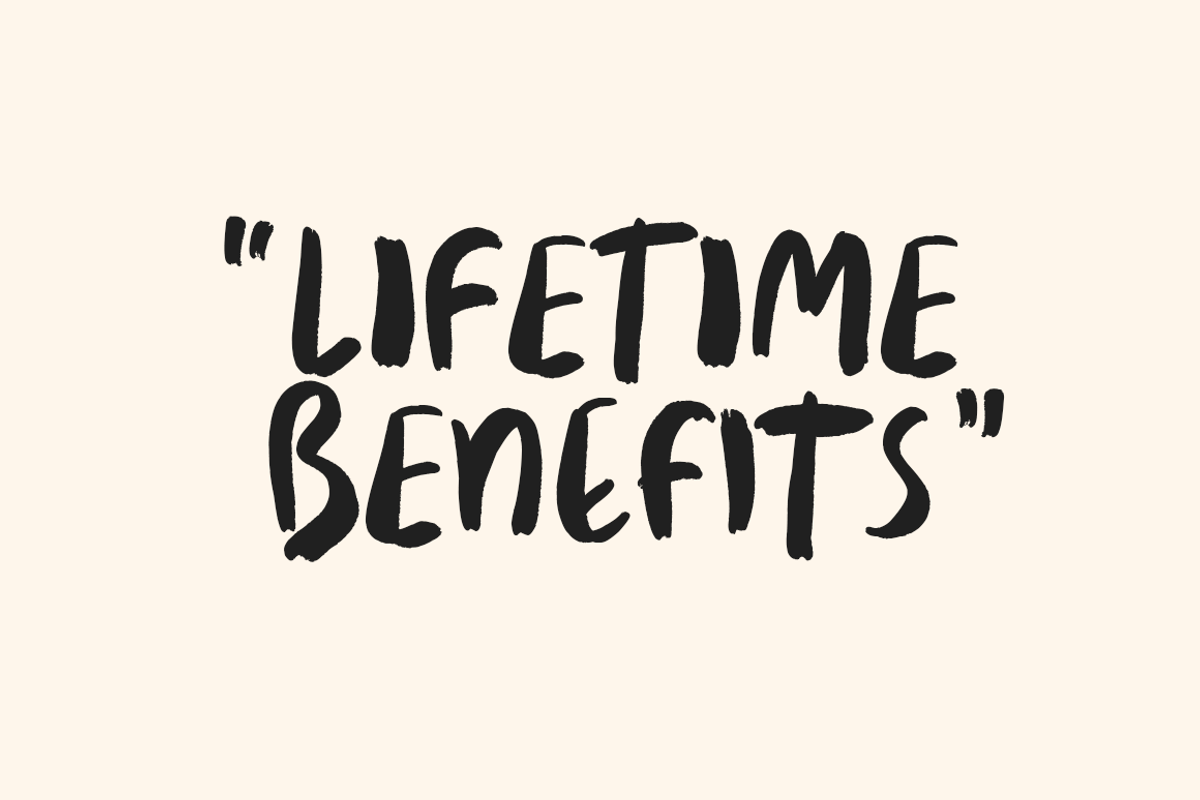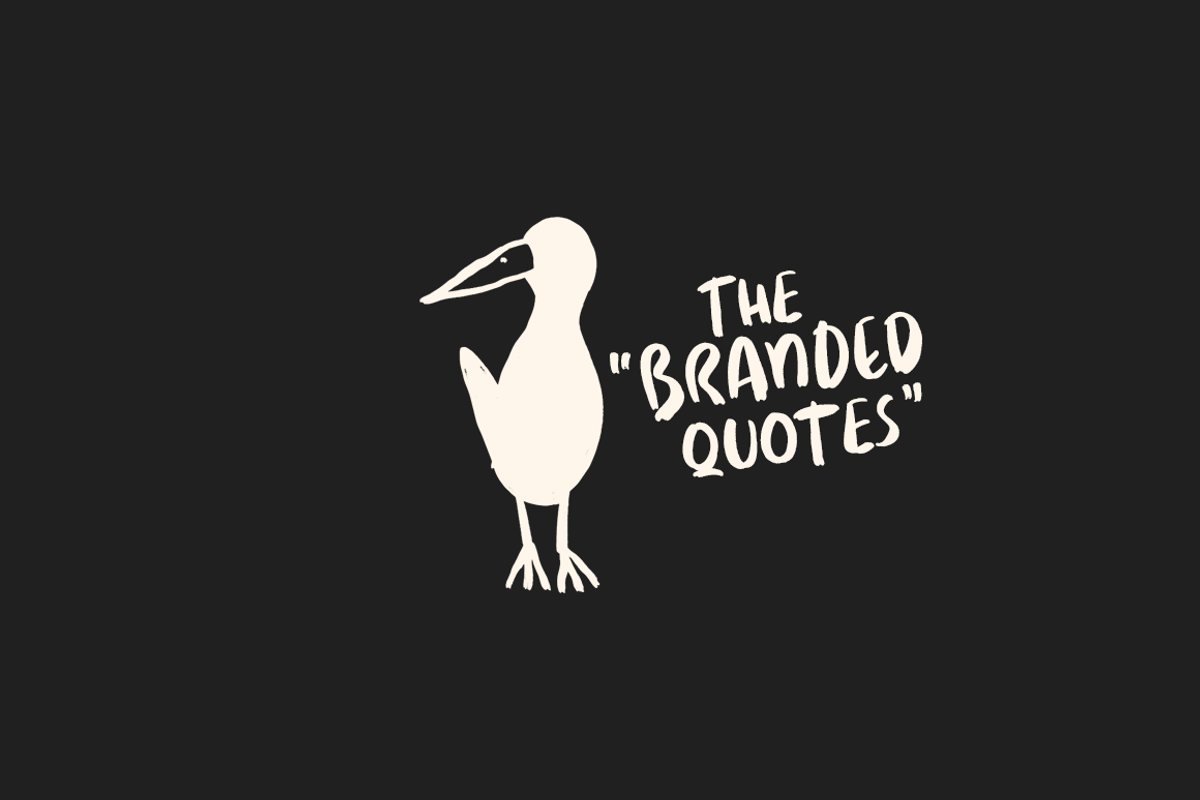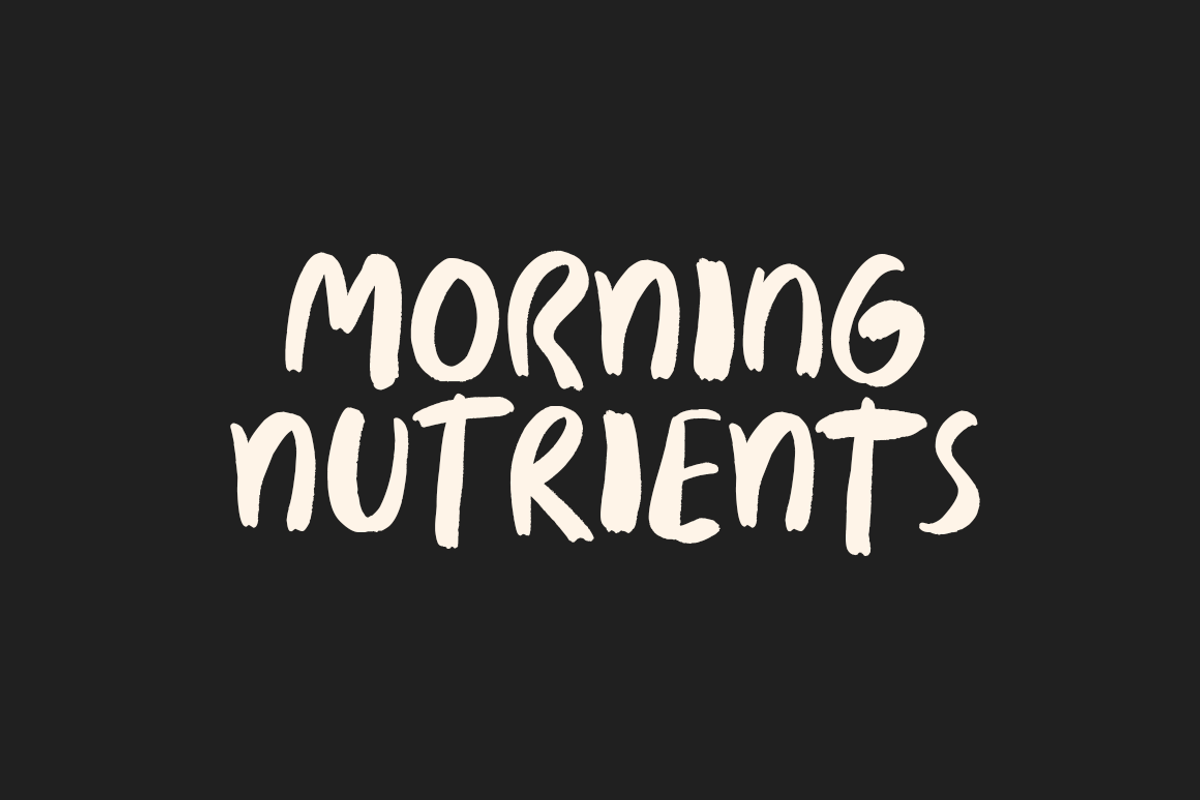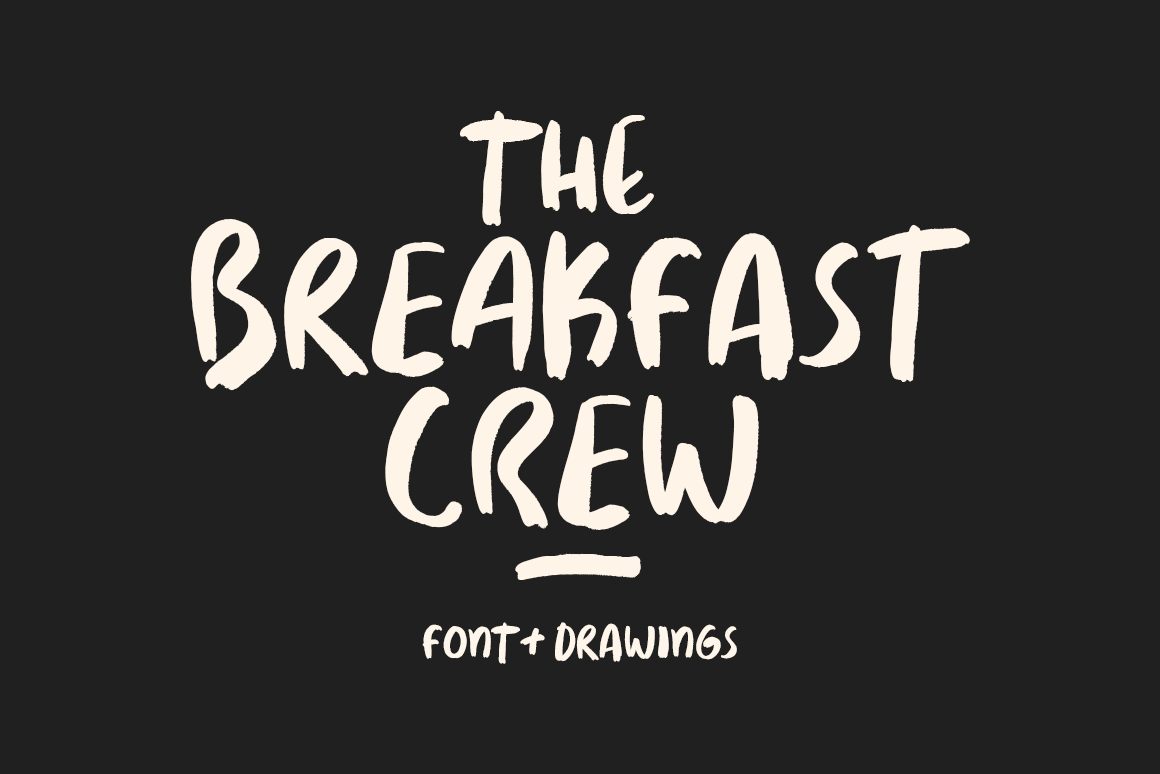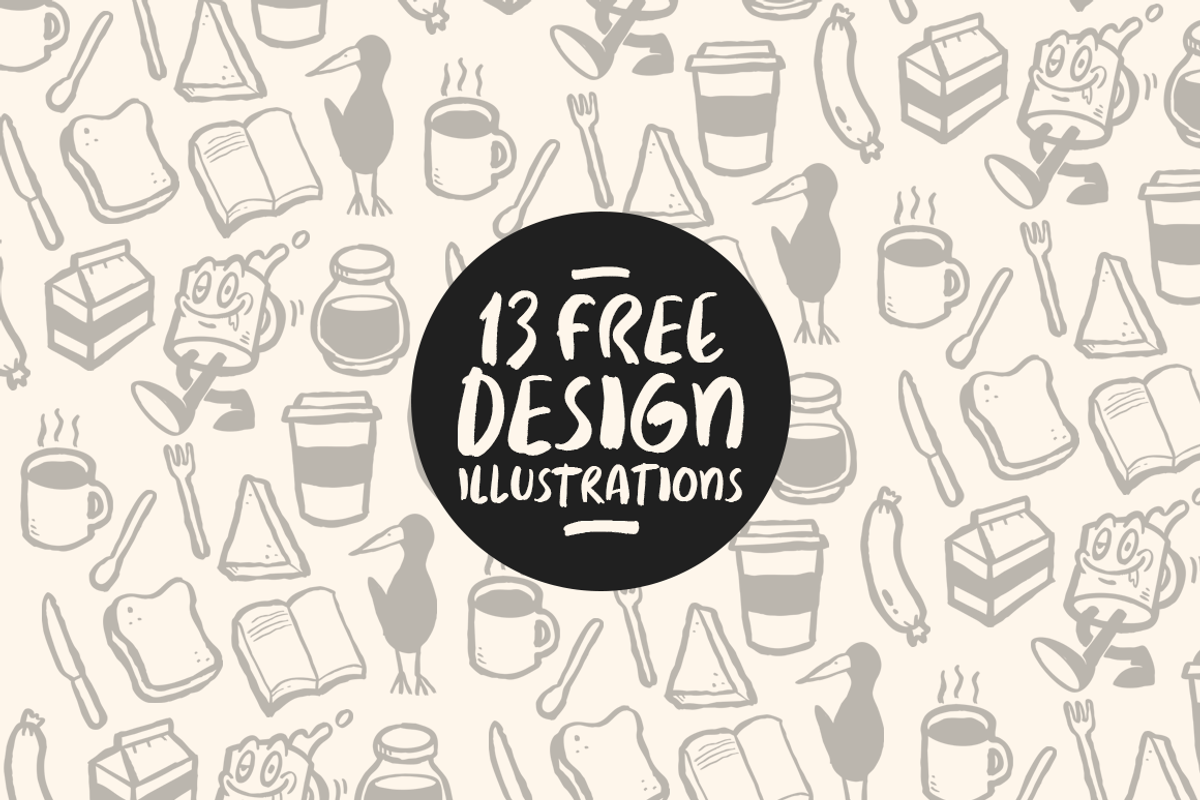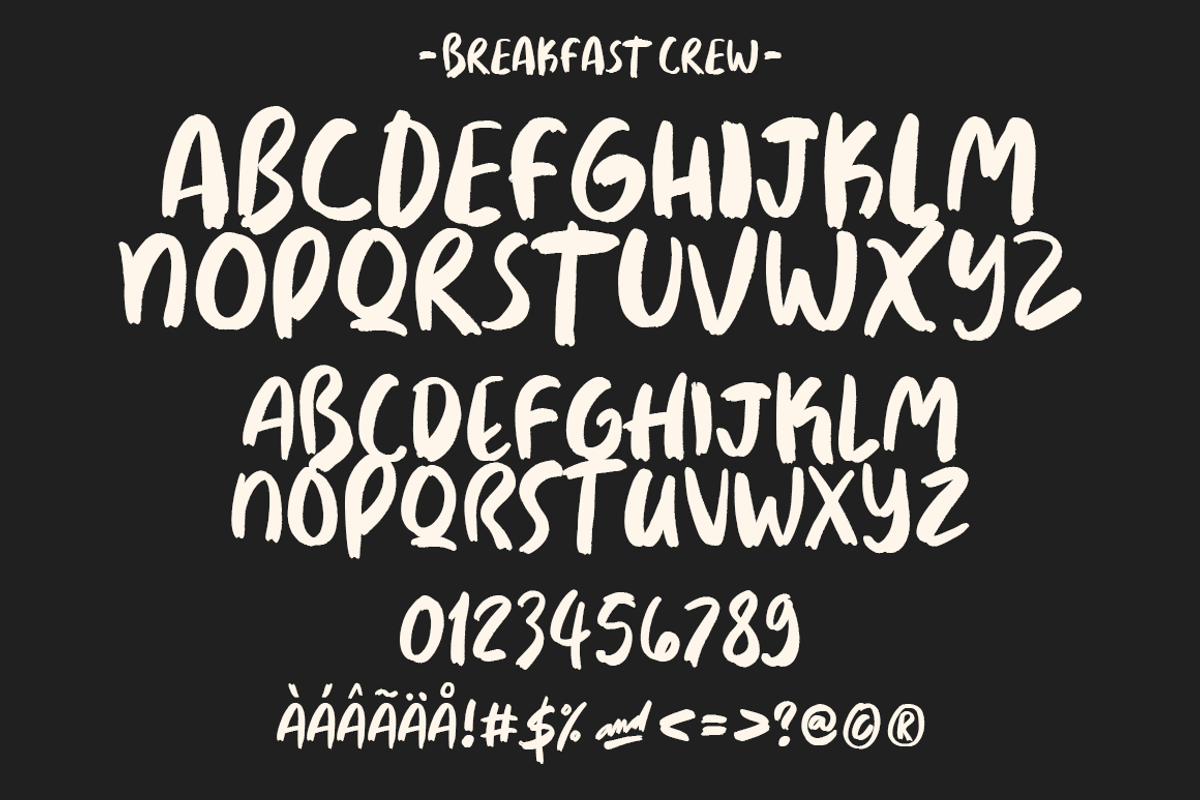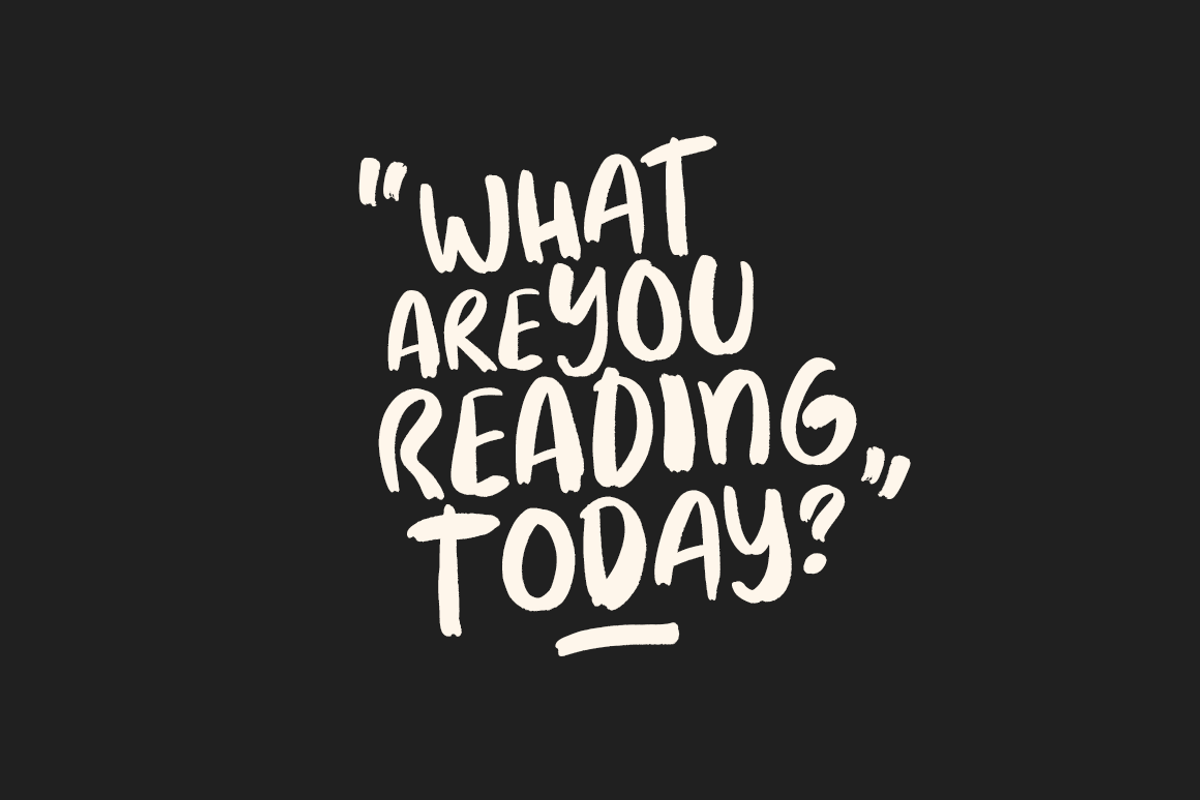
Breakfast Crew Font + Illustrations
Breakfast Crew is a handwritten goofy font using a digital drawing tablet. It contains a simplicity with an impact worth a thousand strokes.
Features: Capitals, Uppercase Alternates, Complete Alphabet and Multilingual Support
Free illustrations included!